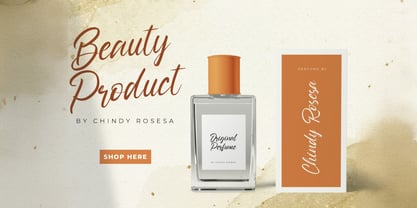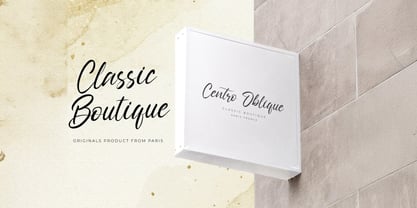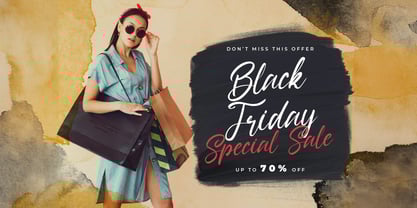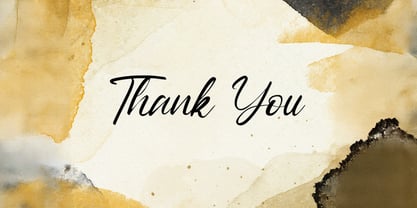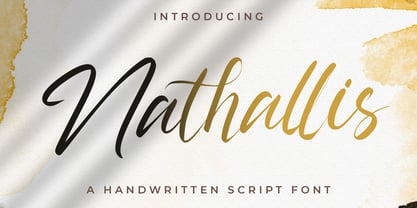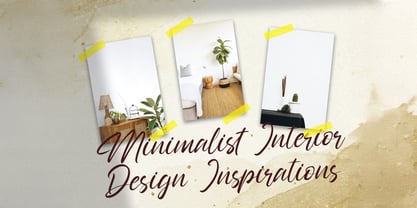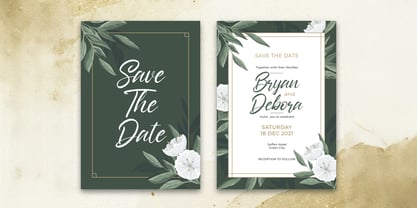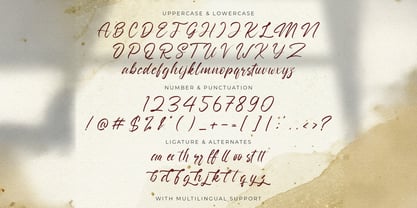
La familia tipográfica Nathallis fue diseñada por Virgiawan Listanto y publicada por Stringlabs Creative Studio. Nathallis contiene 1 estilos.
Nathallis is a beautiful handwritten font with a smooth, flowing style and a touch of elegance. Its delicate curves and natural rhythm make it perfect for designs that need a personal, graceful feel whether you're crafting heartfelt quotes or classy brand identities.
Nathallis